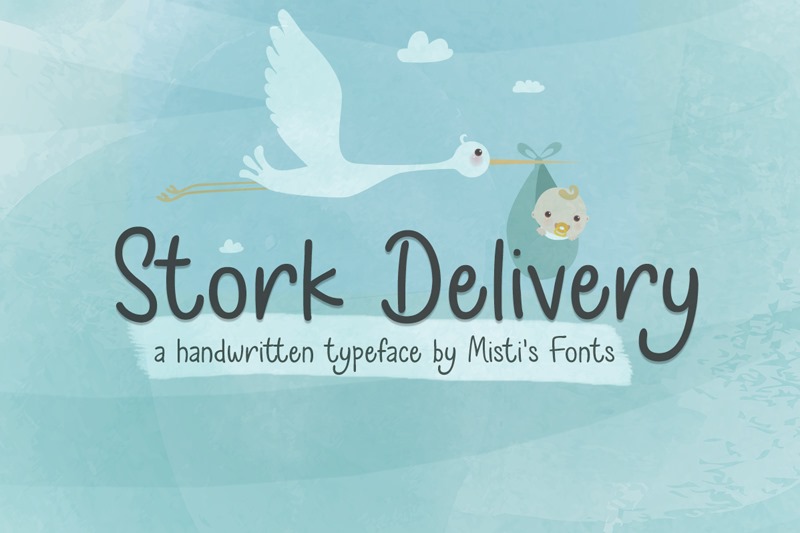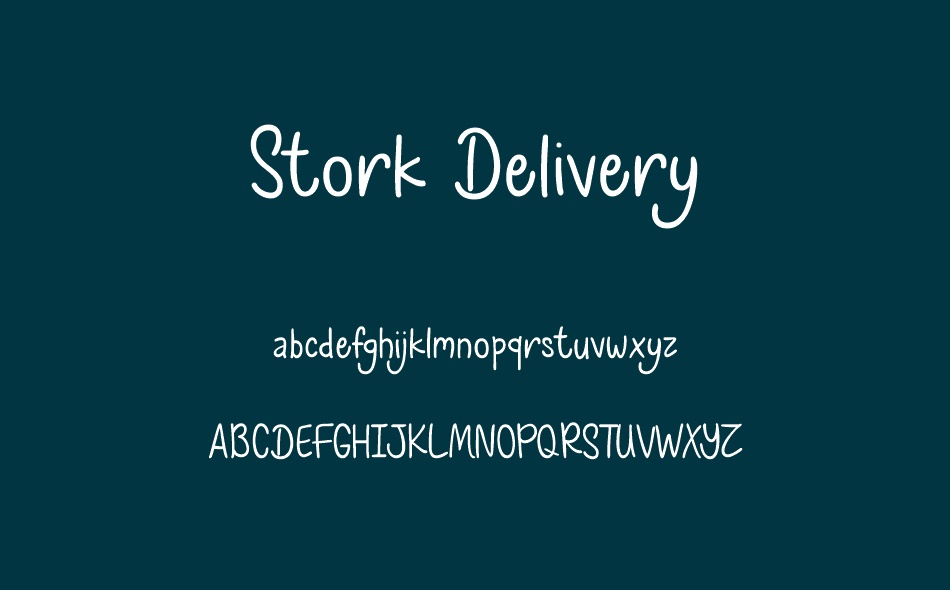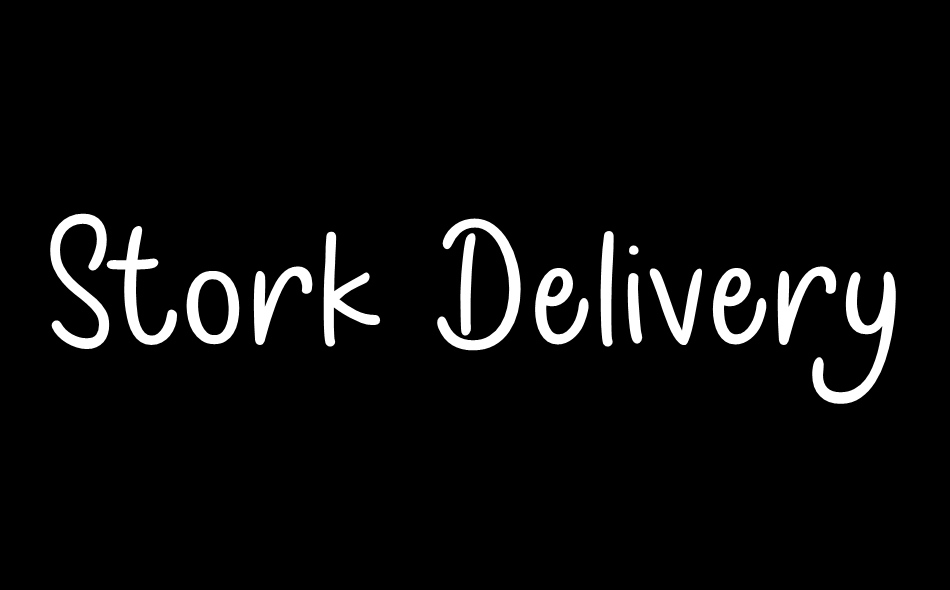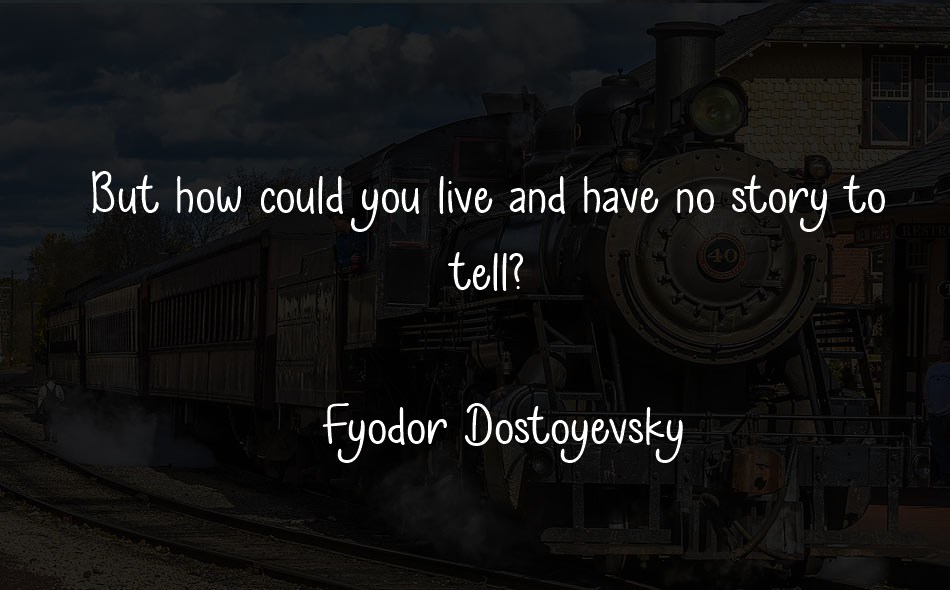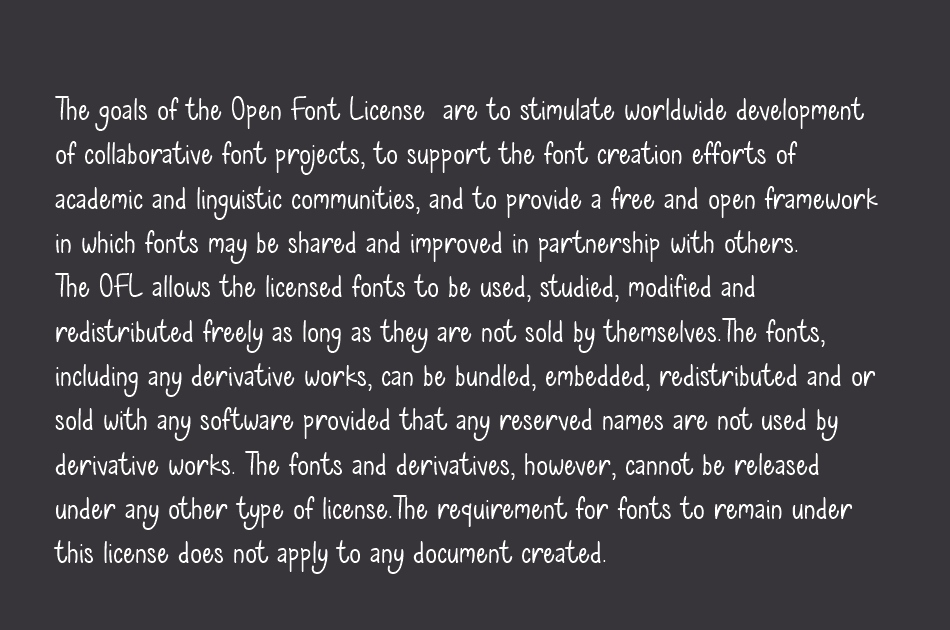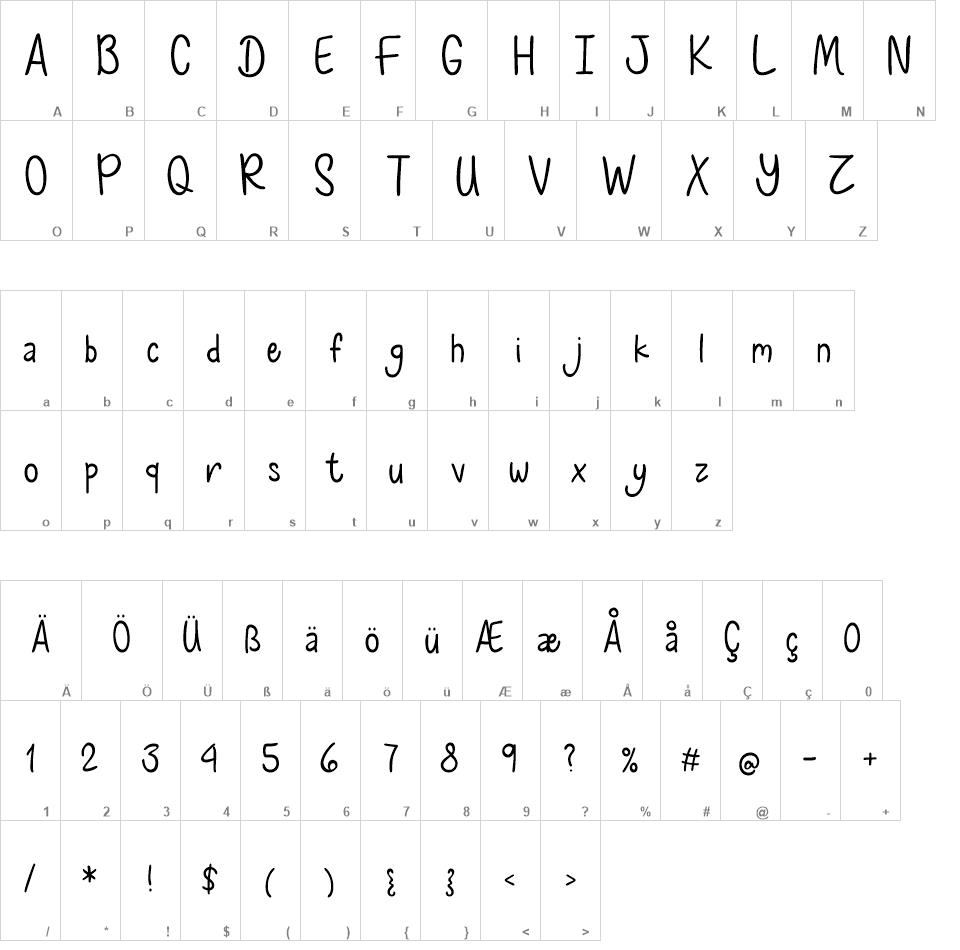
Stork Delivery font
The Stork Delivery font is perfect for adding a personal touch to your designs. With its whimsical and playful appearance, this font is ideal for creating greeting cards, blog post images, and baby-related products. Its charming style is sure to captivate your audience and add a touch of warmth to your projects. Dont wait, try it out today and see the magic for yourself!